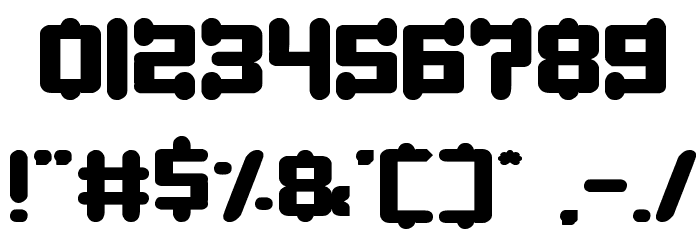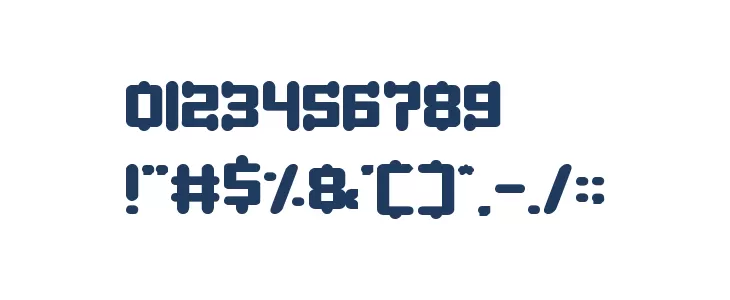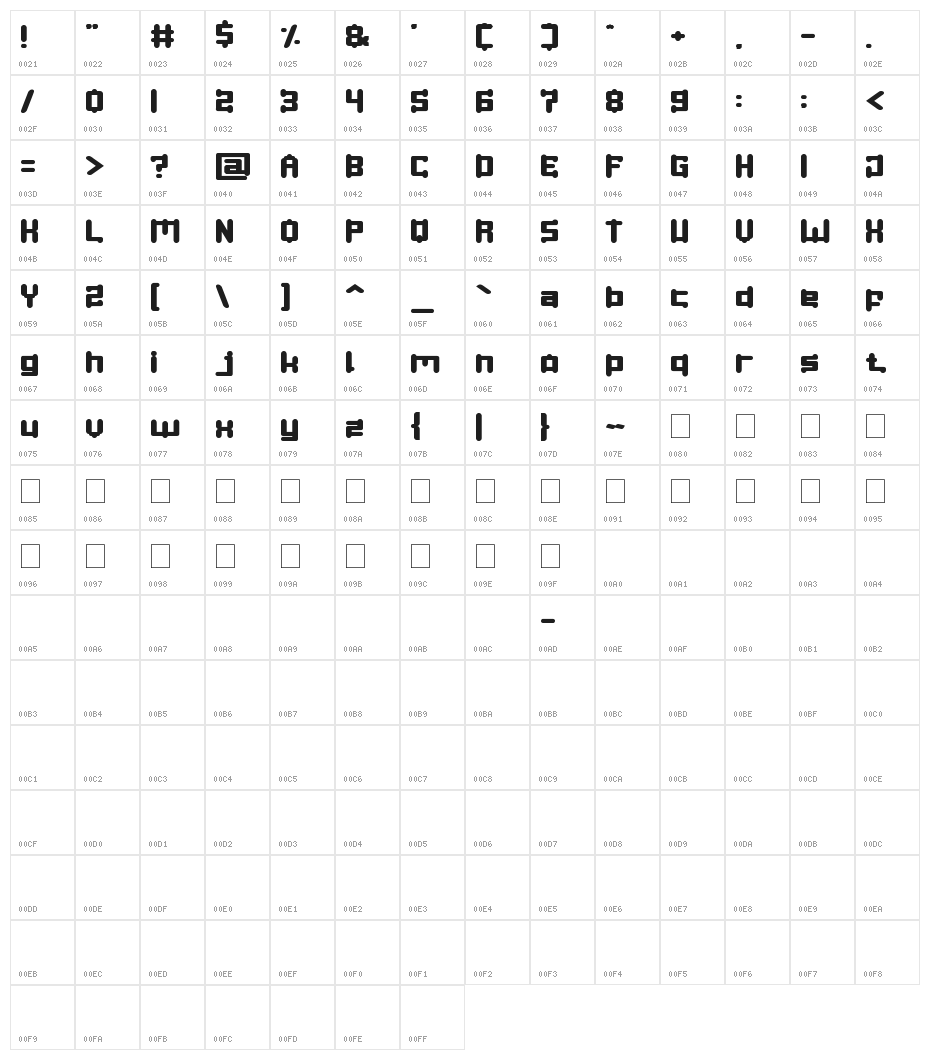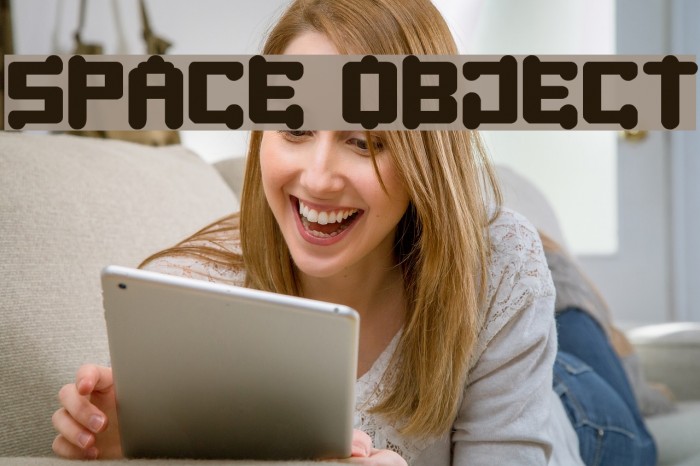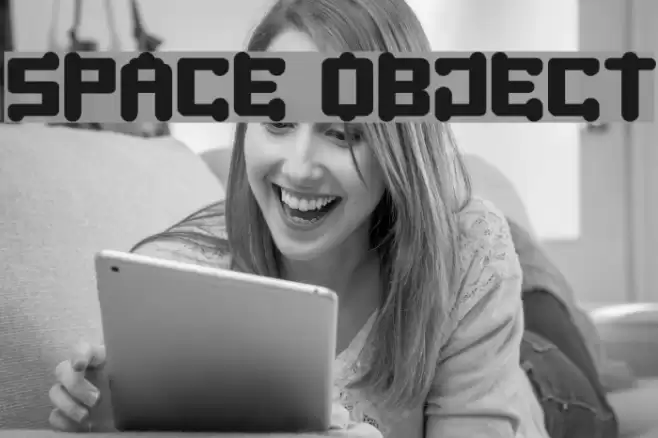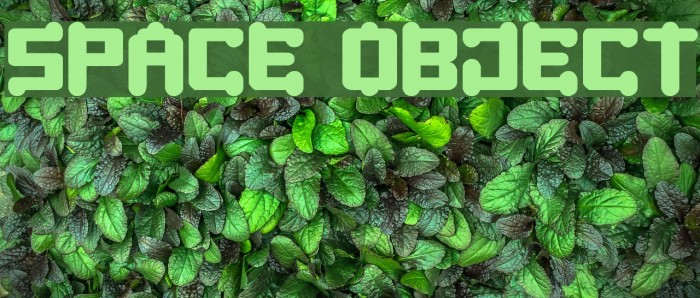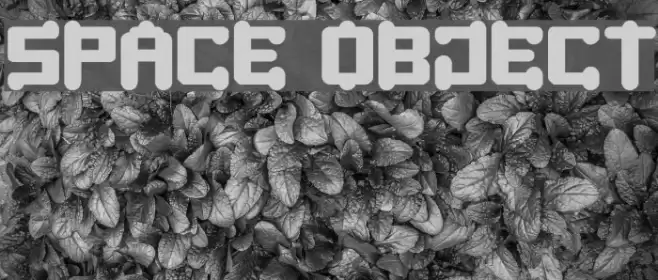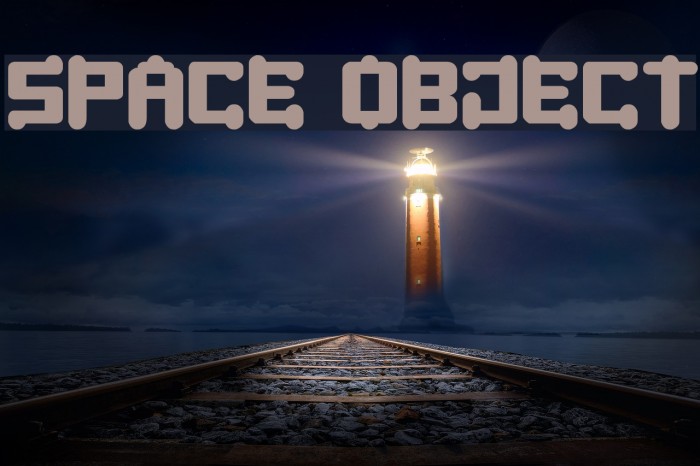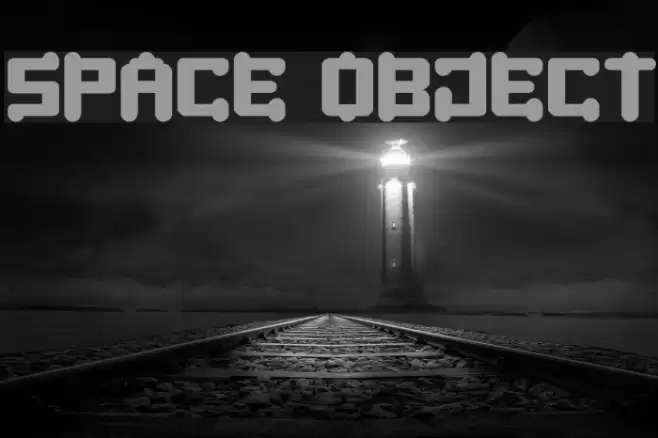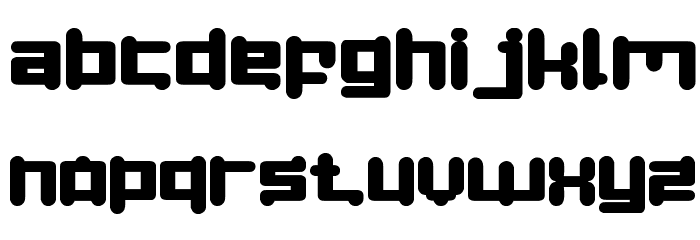
SPACE OBJECT Font
SPACE OBJECT Description
This font features a futuristic and geometric design with rounded edges and a bold presence. The characters are constructed with a consistent thickness, creating a uniform and cohesive appearance. The uppercase and lowercase letters maintain a similar width, contributing to a balanced and harmonious look. The numbers and special characters are designed to match the overall style, ensuring a seamless integration across all elements. The font's unique style makes it suitable for projects that require a modern and tech-inspired aesthetic.
| Proposed Projects | Ideal for sci-fi themed posters, tech branding, video game interfaces, and modern digital artwork. |